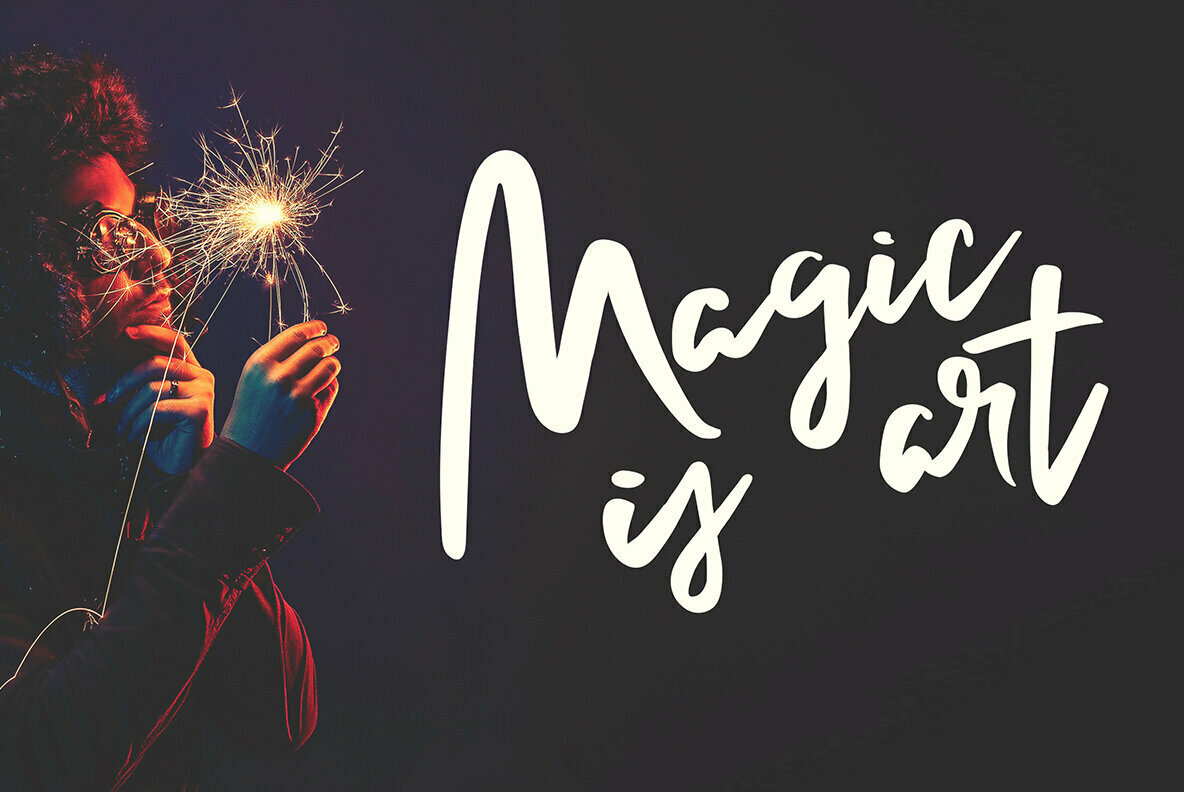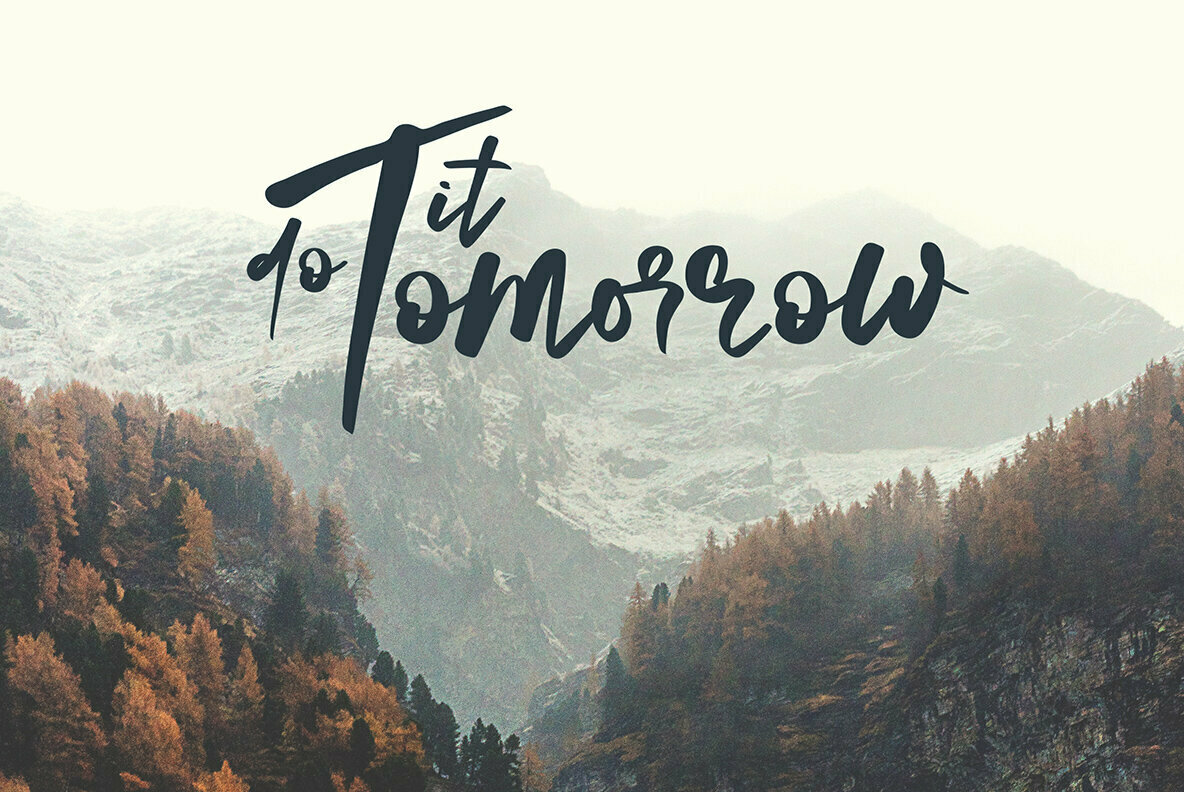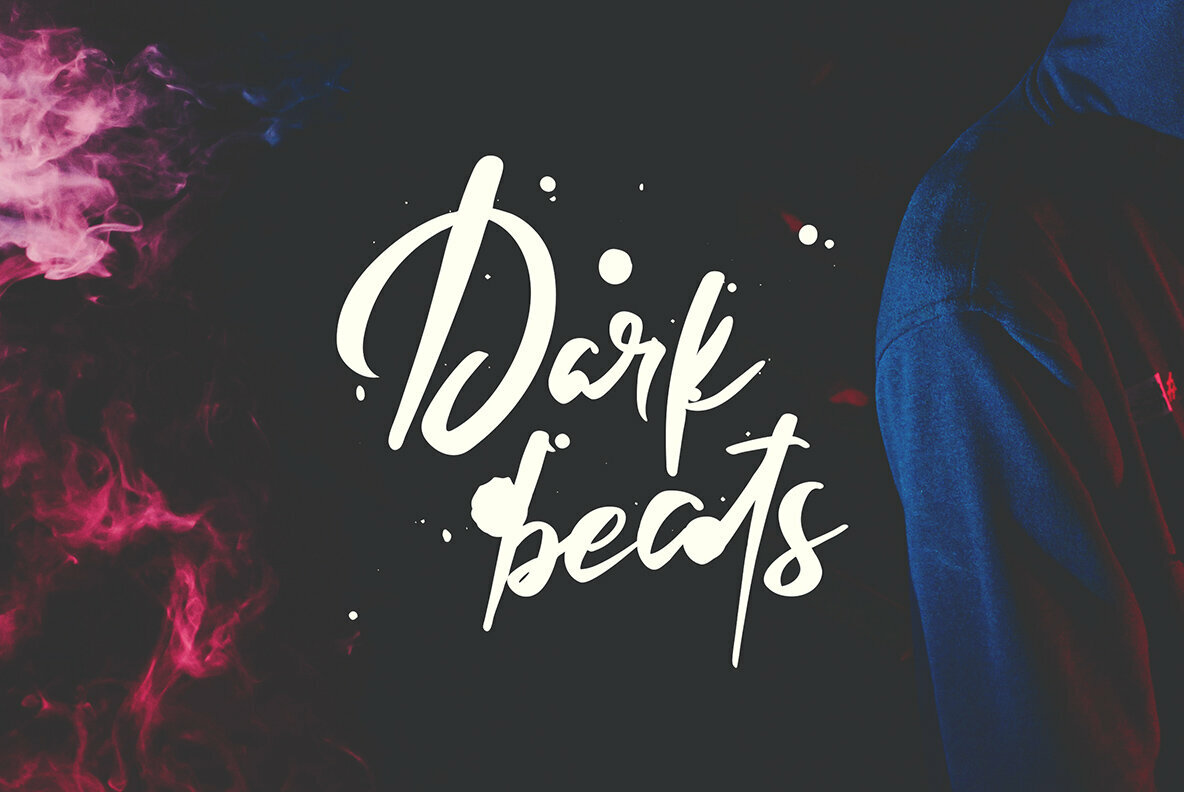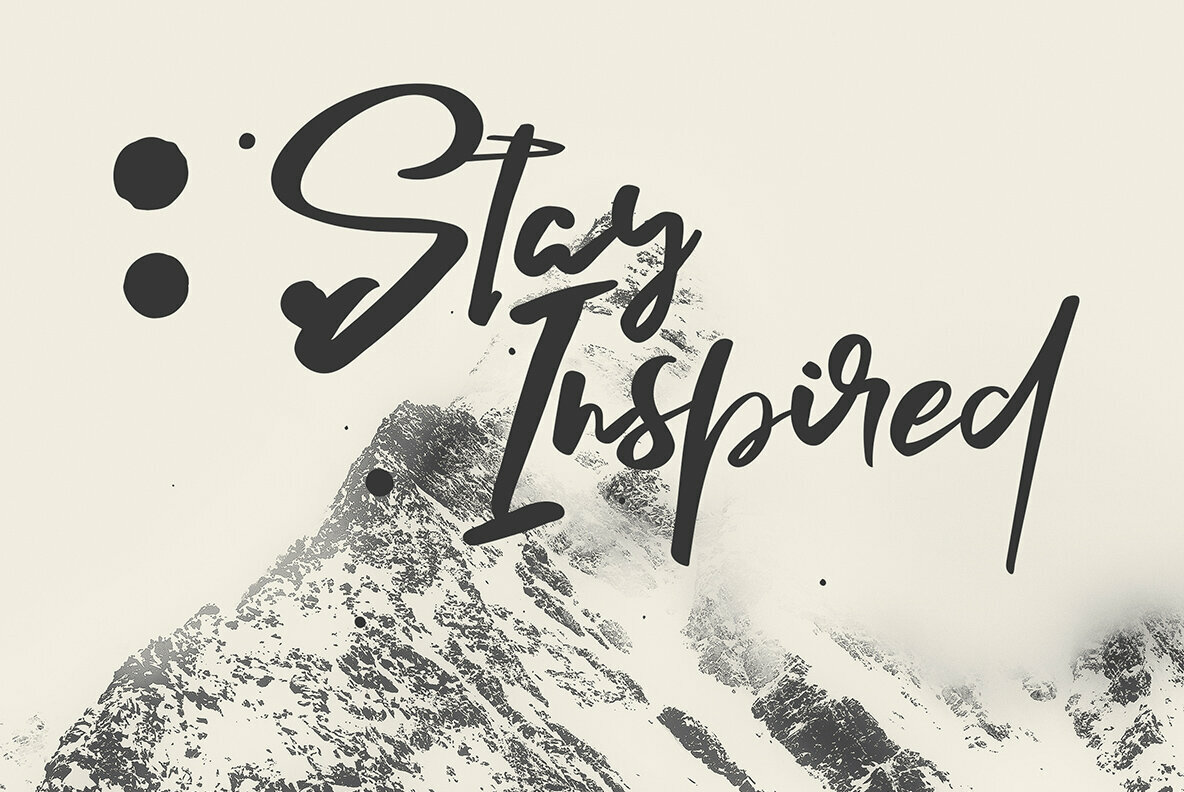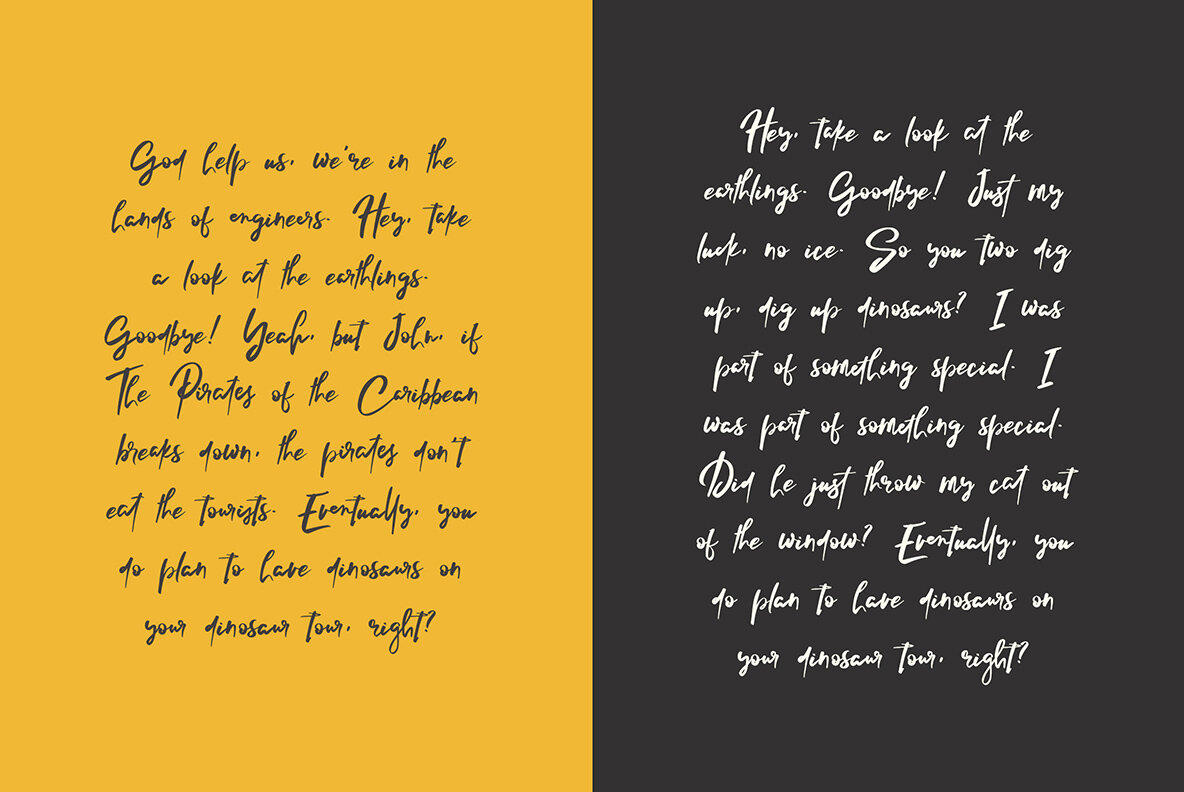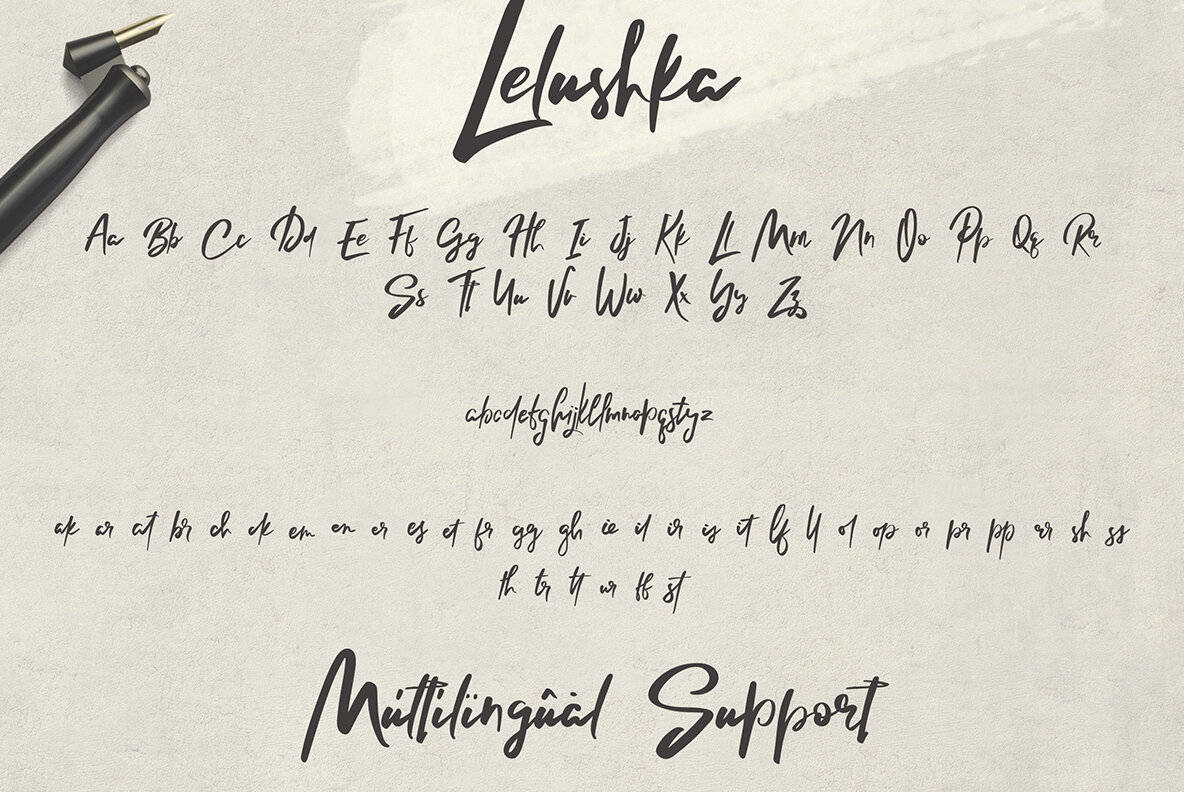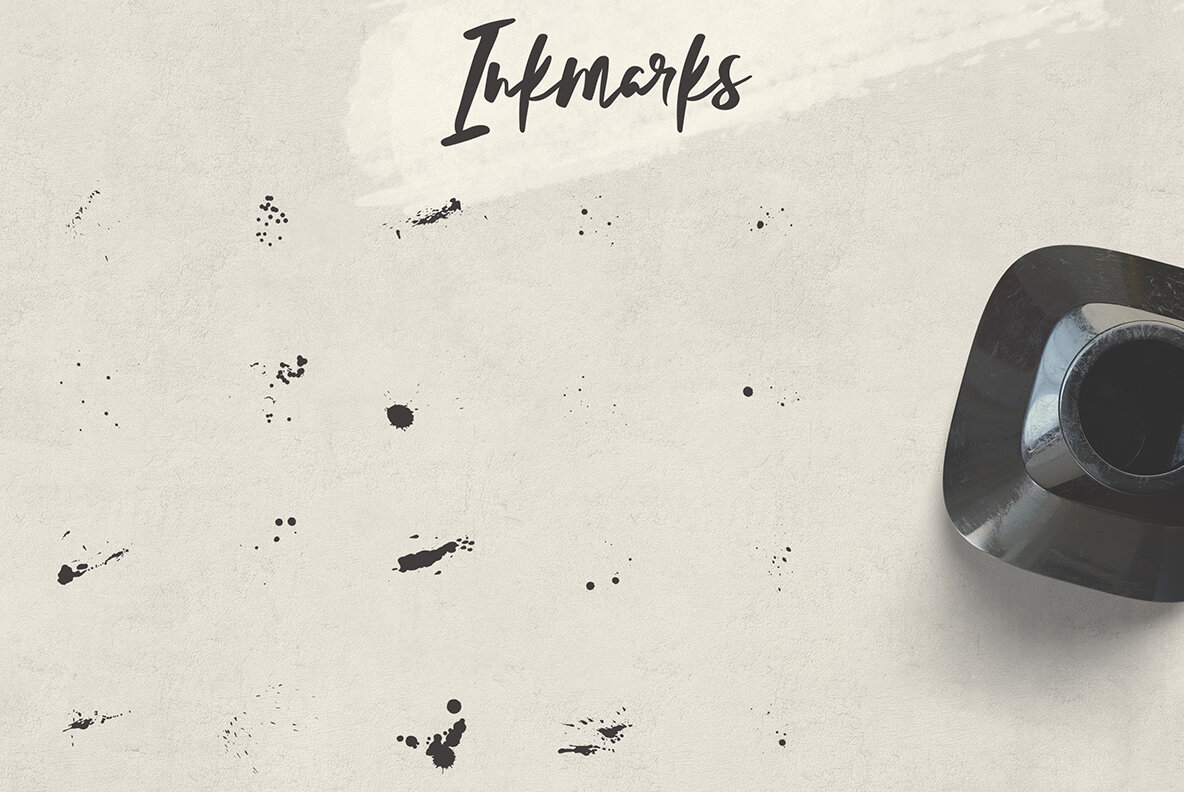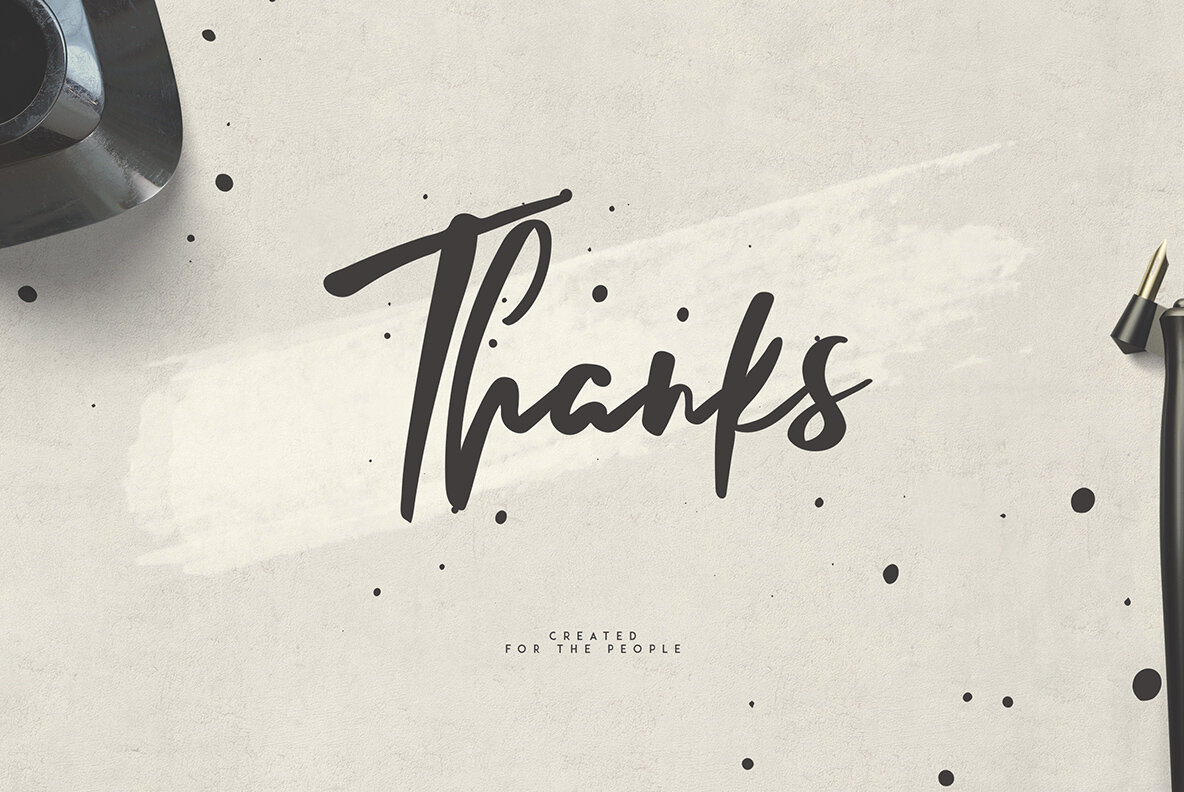
Lelushka Script and Ink marks Font
Lelushka Script stands out with its grunge, urban character complemented by 20 ink marks and comprehensive multilingual support. This versatile font adapts seamlessly from headlines to detailed text, making it suitable for various design scales. Ideal for projects ranging from branding and homeware designs to magazine headers and product packaging, Lelushka Script also excels as a sophisticated text overlay against any backdrop.Lelushka Script: An Urban Touch